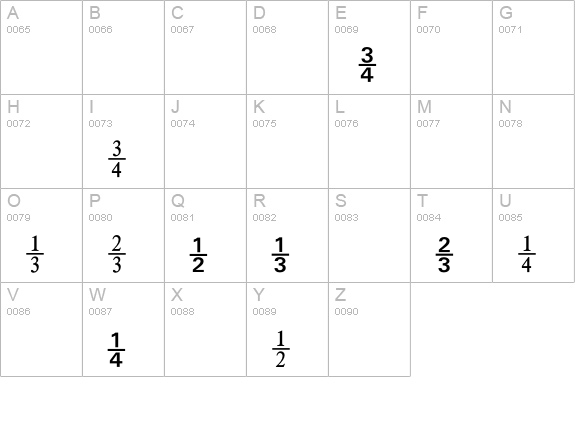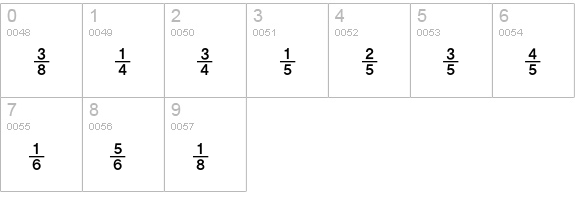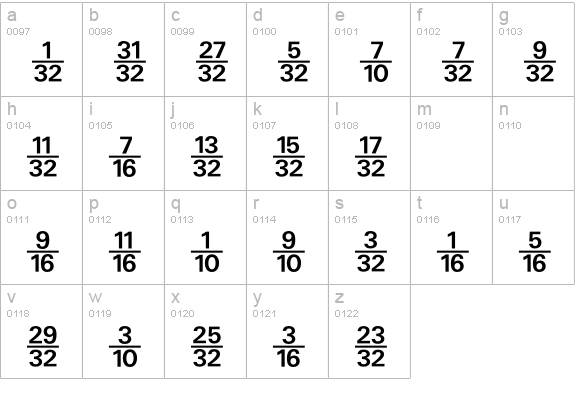
NumericsP11 Font Details
NumericsP11 is a modern and sleek font that exudes a sense of professionalism and sophistication. With its clean lines and geometric shapes, this font is perfect for adding a contemporary touch to any design project. The versatility of NumericsP11 makes it suitable for a wide range of applications, from branding to editorial design. What sets NumericsP11 apart is not only its visual appeal but also its accessibility. This font is freely available to download at FontsMarket.com, making it a fantastic choice for designers looking to enhance their projects without breaking the bank. Whether you're working on a website, poster, or logo, NumericsP11 is sure to make a bold statement and leave a lasting impression on your audience.